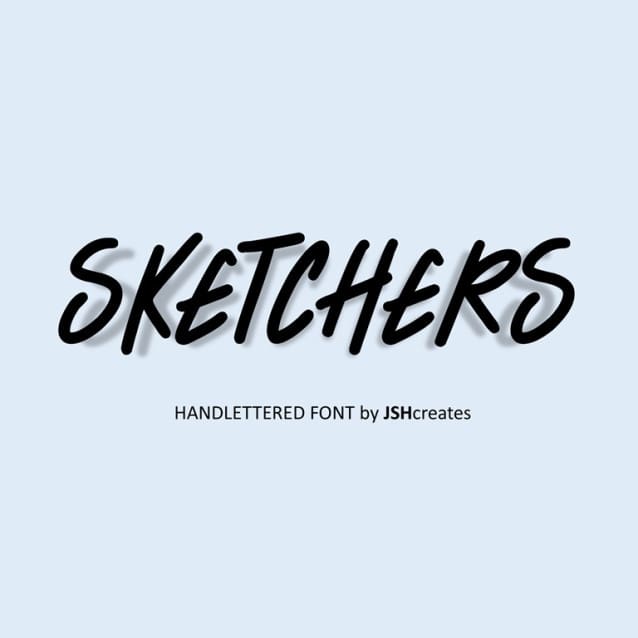
Sketchers Font
Sketchers Font is a casual and friendly handwritten font. Whimsical and a bit quirky, this font will brighten up each of your designs. Add it confidently to your projects, and you will love the results.